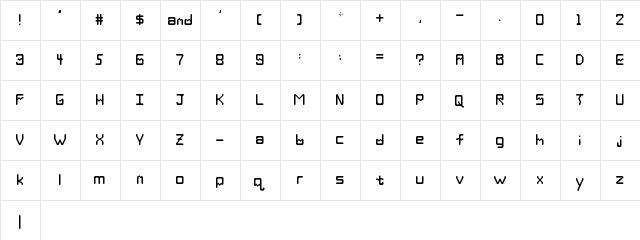
Deka Regular
| Designer | thesock338 |
Design Context for Deka Typeface
Deka takes a measured approach to typography — its balanced proportions and neutral character make it a reliable workhorse for both digital and print work.